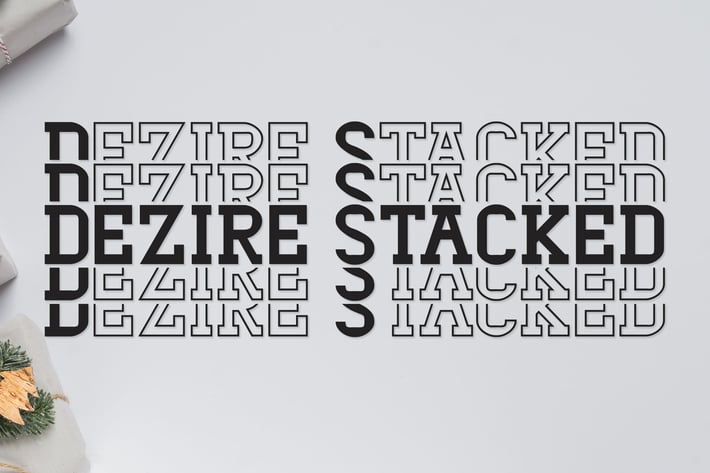
Dezire Stacked - Mirrored Font
Dezire Stacked is a geometrical playful Slab serif Bold Font with outline variations will perfectly fits for the sports and craft projects.